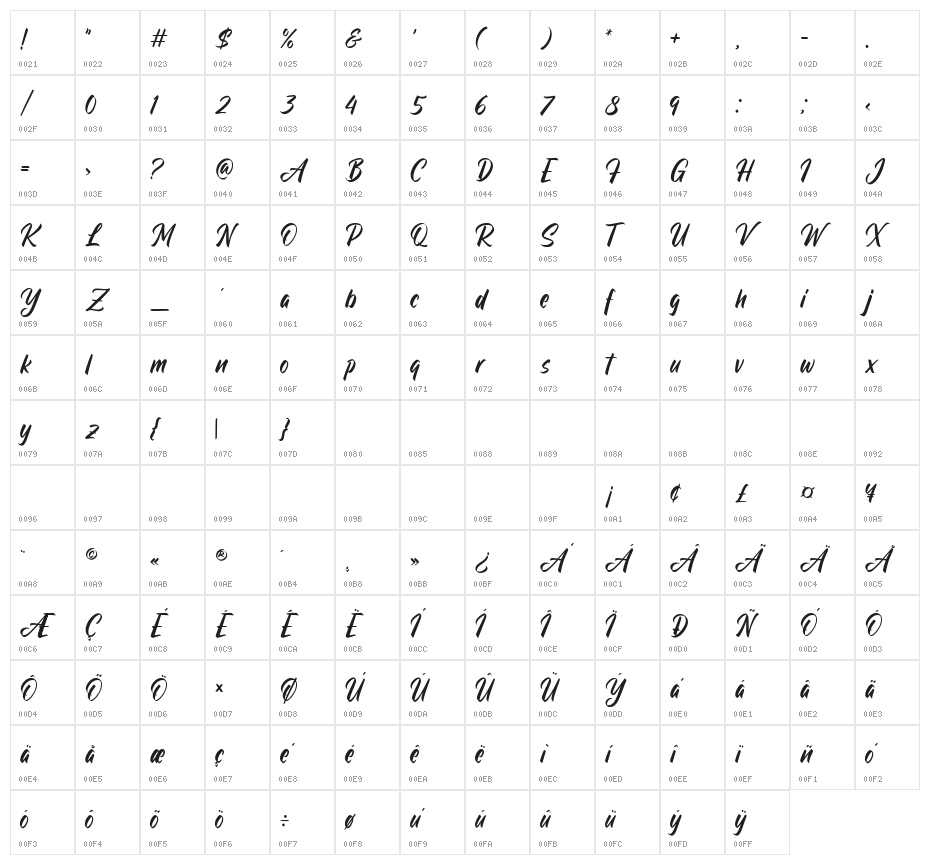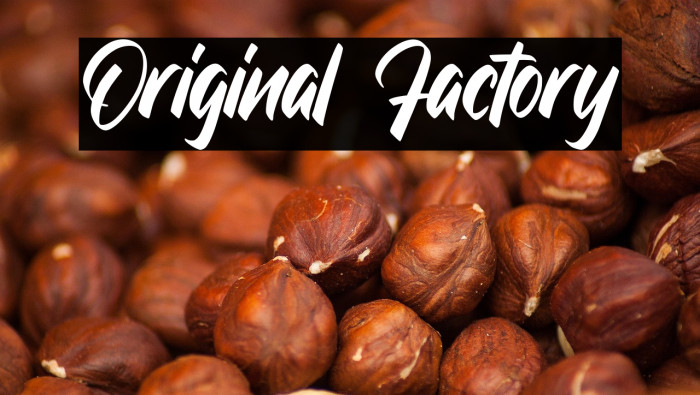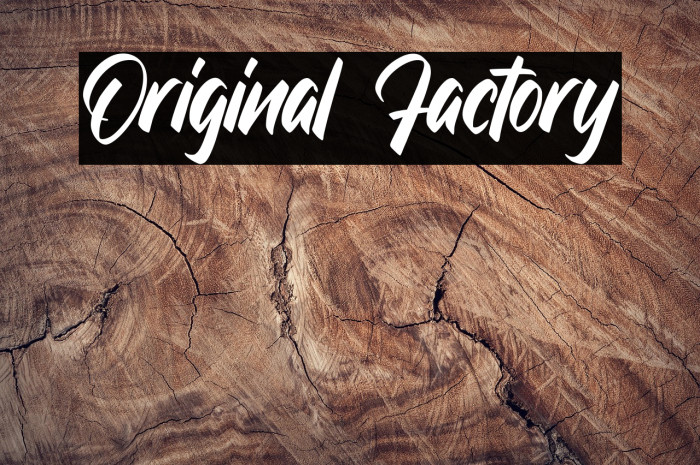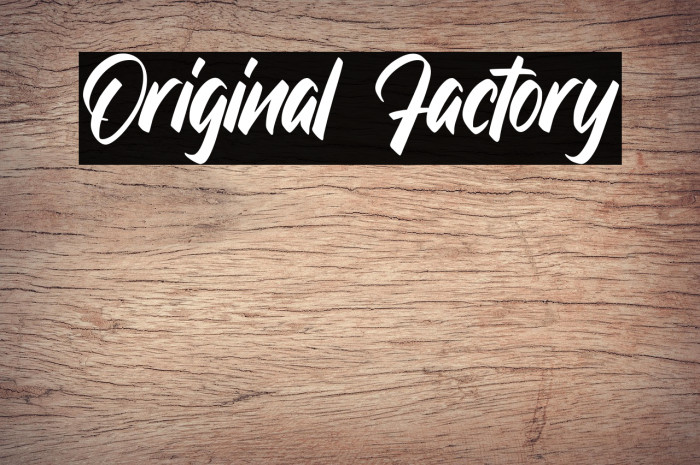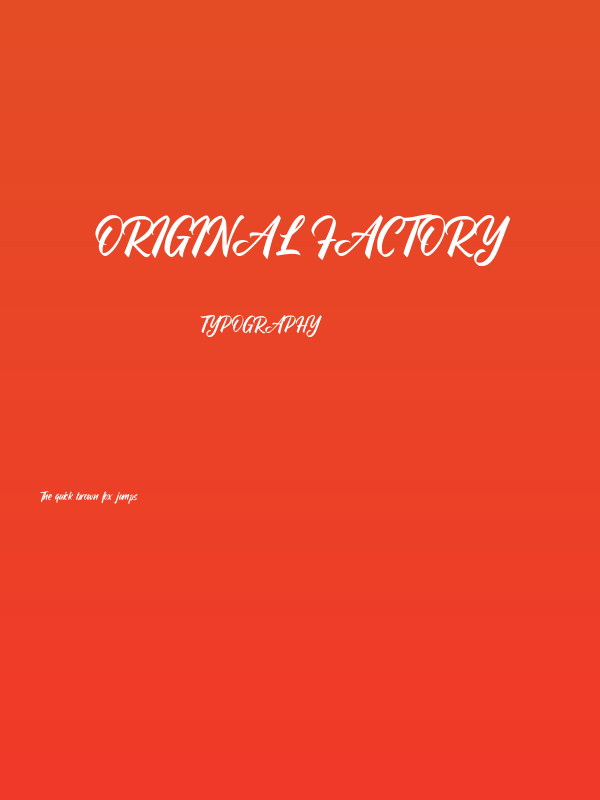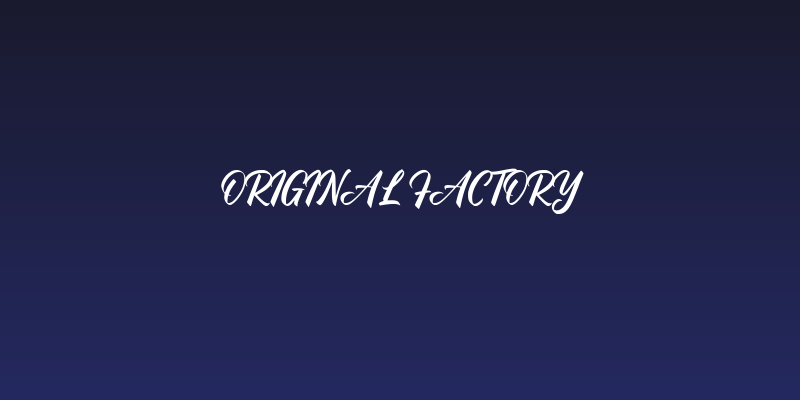
Original Factory Font
Original Factory Description
This font exudes a dynamic and energetic style, characterized by its bold, flowing script. The letters are elegantly connected, creating a sense of movement and fluidity. The uppercase letters are slightly more formal, while the lowercase letters maintain a casual and approachable feel. The numerals are consistent with the overall style, ensuring readability while maintaining the font's unique flair. Special characters are well-integrated, complementing the alphabet with a cohesive look. This font is perfect for projects that require a touch of elegance and personality.
| Use Case | Logos, Headlines, Invitations |
| Proposed Projects | Ideal for branding, invitations, greeting cards, and creative projects that require a personal touch. |